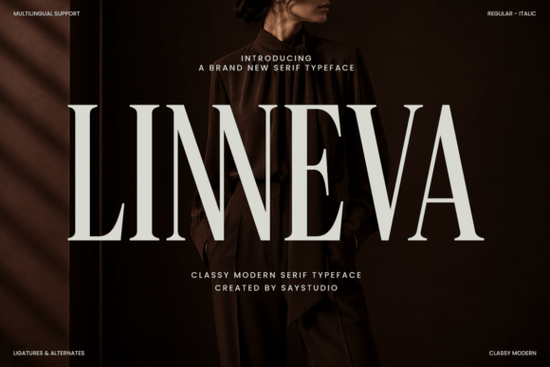
If you’ve been searching for a serif font that feels both modern and luxurious, Linneva might be exactly what your next project needs. It’s the kind of typeface that quietly commands attention not with loud strokes or flashy ligatures, but with clean lines and refined proportions. Whether you’re designing wedding invitations, boutique packaging, editorial spreads, or premium brand assets, Linneva brings a sense of quiet confidence to your layouts.
What makes it stand out is how effortlessly it bridges classic elegance with contemporary minimalism. You’ll notice subtle nods to high-end fashion magazines and luxury branding in its letterforms think crisp serifs, balanced spacing, and just enough character to feel intentional without being ornate. That’s why it pairs beautifully with minimalist photography, muted color palettes, and upscale product mockups.
Who should consider using Linneva?
This isn’t a font for every project and that’s okay. It shines best when you’re aiming for sophistication. Here’s who will get the most from it:
- Small business owners launching beauty, interior design, or lifestyle brands who want their visuals to feel curated and premium.
- Print-on-demand sellers creating mugs, journals, or wall art targeting customers who appreciate understated elegance.
- Wedding stationery designers looking for something more modern than traditional script fonts but still deeply romantic.
- Editorial designers working on boutique magazines or lookbooks where typography needs to complement imagery, not compete with it.
- Crafters and hobbyists making personal projects like family holiday cards or custom gift tags that deserve a polished finish.
If you’ve used fonts like Belvoria or Cornville before and liked their balance of personality and readability, Linneva will feel familiar but with a sharper, more editorial edge.
How does it compare to other serif fonts on Creative Fabrica?
Serif fonts come in all flavors, and choosing the right one depends on the mood you’re building. For example:
- Intellecta leans into vintage charm with typewriter-inspired quirks great for rustic or nostalgic designs.
- Belvoria offers soft curves and friendly warmth, perfect for feminine or artisanal brands.
- Cornville has a hand-lettered, organic flow ideal for casual elegance or craft-focused projects.
Linneva sits at the opposite end of that spectrum: structured, precise, and quietly confident. It doesn’t try to be cute or folksy. Instead, it’s built for clarity and presence the kind of font you’d see in a high-end catalog or luxury hotel brochure.
- Basic OpenType features like standard ligatures and stylistic alternates
It’s worth noting that while Linneva includes some alternate characters, it’s not overloaded with decorative extras. That’s intentional its strength lies in consistency and restraint. If you’re looking for tons of swashes or flourishes, you might prefer something like Belvoria. But if clean, editorial polish is your goal, Linneva delivers exactly that.
Any tips for pairing it with other fonts?
A common mistake is pairing Linneva with another strong serif the result can feel cluttered. Instead, try these combinations:
- With a neutral sans-serif like Helvetica Neue, Avenir, or Montserrat for contrast and readability.
- With a delicate script just one word or phrase to add a touch of softness without overwhelming the layout.
- On its own in all-caps headlines or large display sizes, where its structure really stands out.
You can also experiment with weight contrast. Linneva often includes regular and bold weights using them together creates hierarchy without needing additional fonts.
Where have you seen fonts like this used successfully?
Look at the typography in publications like Vogue, Architectural Digest, or premium skincare packaging that’s the visual language Linneva taps into. It’s not about shouting for attention; it’s about earning respect through subtlety. Brands that value craftsmanship, heritage, or slow living tend to gravitate toward this style of typeface because it implies thoughtfulness.
If you’re unsure whether Linneva fits your brand voice, ask yourself: Do I want my audience to feel calm, impressed, and assured? Or do I want to energize them with boldness or whimsy? If it’s the former, you’re in the right place.